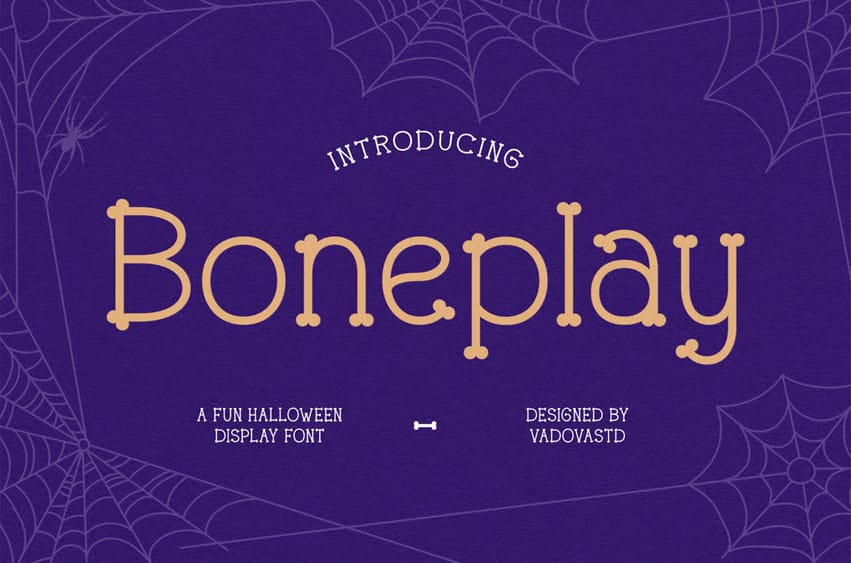
Boneplay Font is a quirky and spirited Halloween-themed display font designed to bring playful eeriness to seasonal designs. With its bone-like letterforms and rounded curves, Boneplay carries a cheerful spookiness that appeals to all ages, especially for Halloween campaigns, event posters, party invitations, and themed social media posts.
The font style is whimsically eerie, walking the line between spooky and fun without becoming overly macabre. It’s especially well-suited for kid-friendly Halloween projects, trick-or-treat printables, haunted house signage, and costume store branding.
Its handcrafted, slightly irregular shapes and cartoonish charm give it a handcrafted, spooky-authentic vibe. With multilingual support, extensive punctuation, and a full character set, Boneplay ensures that your Halloween messaging is as effective as it is expressive.
Whether you’re crafting party invites, candy wrappers, or social media graphics, Boneplay turns every letter into a playful fright-night delight.